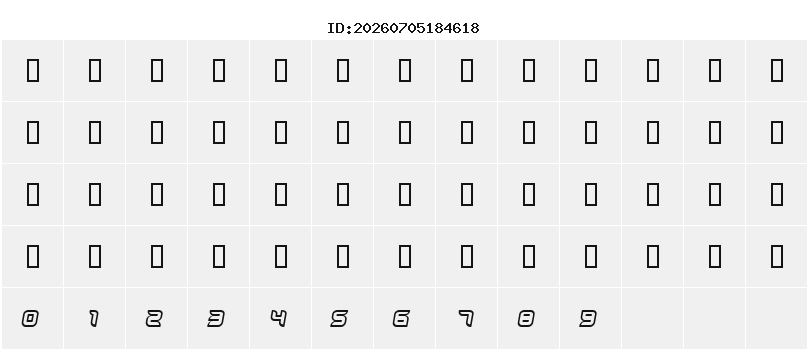
Dlila Hollow Oblique Preview
• Font Name: Dlila Hollow Oblique
• Full Font Name: Dlila Hollow Oblique
• PostScript Name: DlilaHollowOblique
About Dlila Hollow Oblique.ttf
Dlila Hollow Oblique.ttf is a modern, elegant sans-serif font designed for ultimate readability and visual harmony. Perfect for branding, headlines, web design, and print materials.